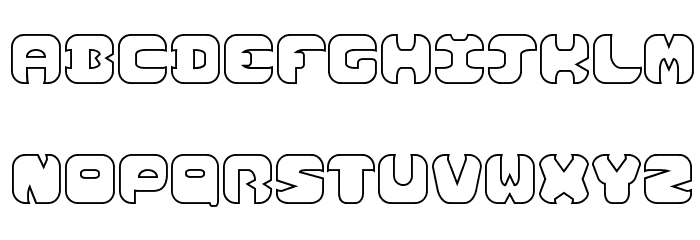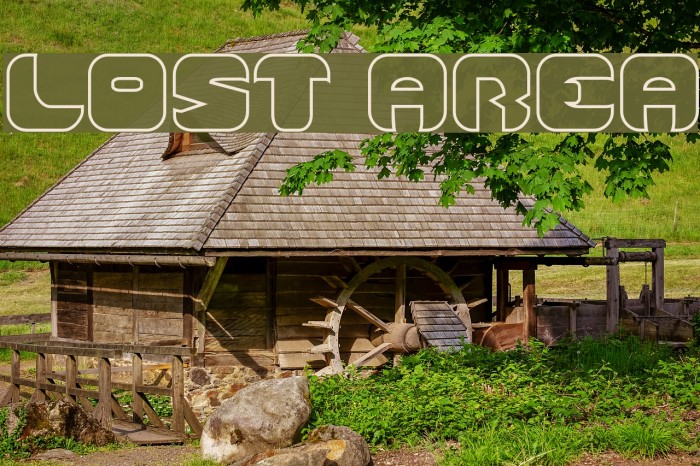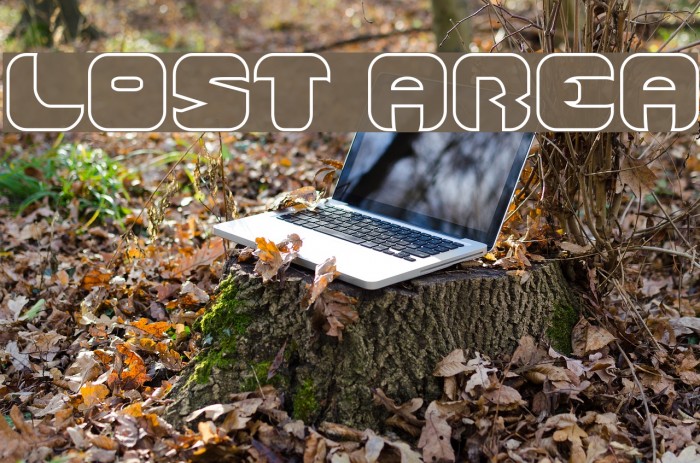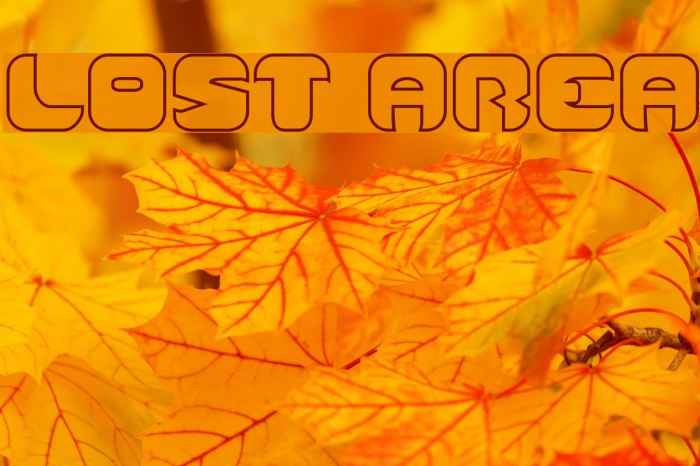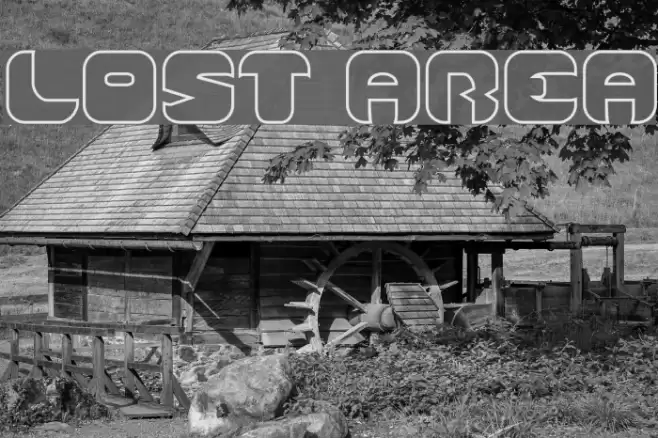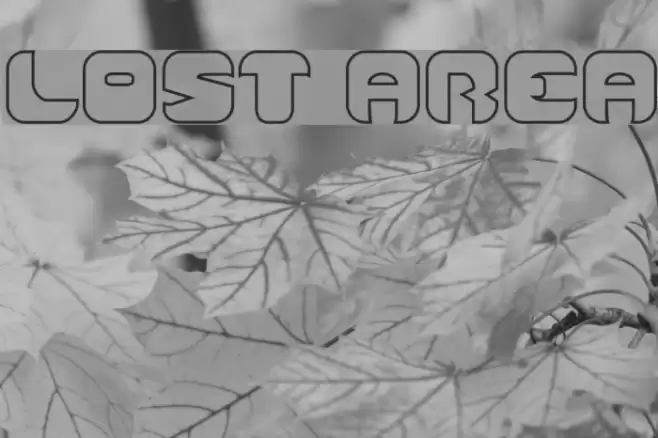
Lost Area Font
This font features a bold, geometric design with a distinct outline style. Each character is crafted with a uniform thickness, creating a cohesive and modern appearance. The shapes are rounded and slightly squared, giving it a futuristic and playful vibe. The font's structure is consistent, with each letter maintaining a similar width and height, contributing to its balanced and harmonious look. The outlined nature of the font adds a layer of depth and dimension, making it suitable for eye-catching designs.
A bold, geometric outline font with a modern and playful style.
- Proposed Projects: Ideal for posters, logos, video game graphics, and futuristic-themed designs.